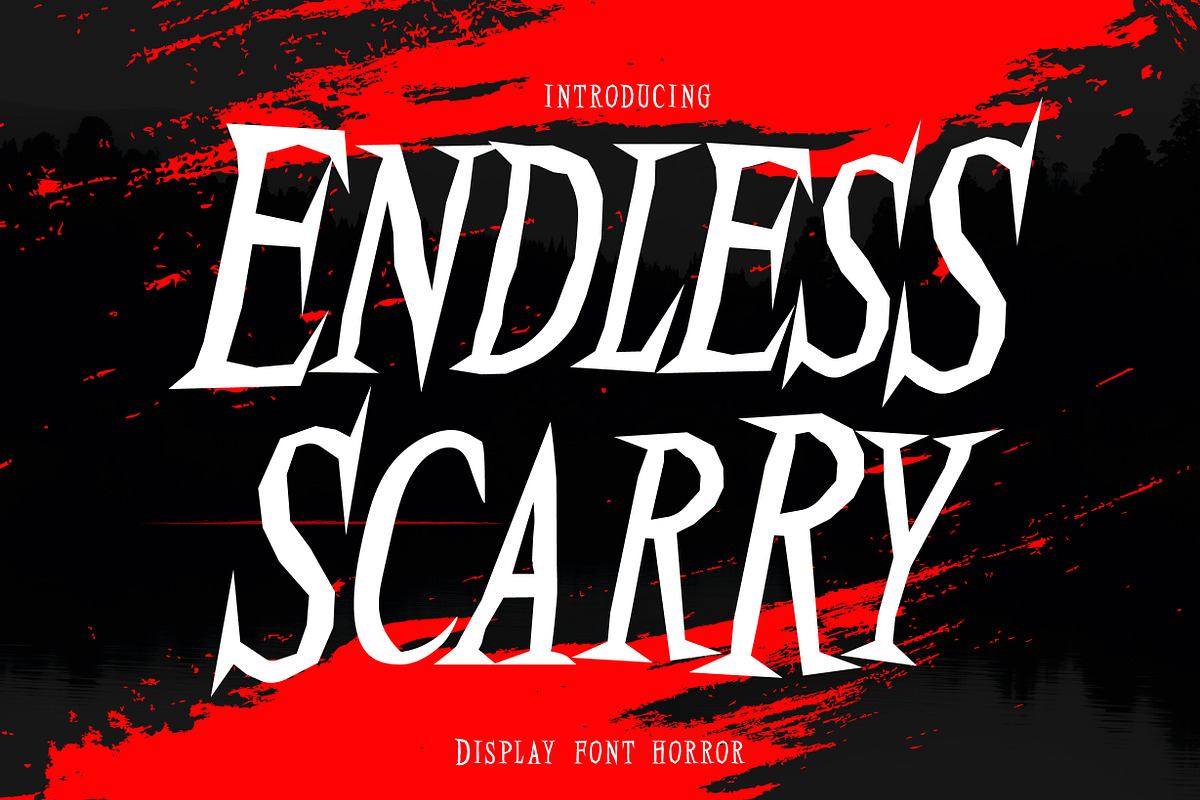
Endless Scarry - Display Font Horror Free Download is a terrifyingly bold typeface designed to send chills down your spine. With jagged edges, eerie strokes, and a chaotic vibe, this horror display font is perfect for Halloween posters, haunted house branding, scary movie titles, thriller book covers, and anything that needs a dark, twisted edge. It’s built to shock, spook, and stand out.
Using the Endless Scarry - Display Font Horror Free Download brings instant fear factor to your design. Its dramatic letterforms create a sense of urgency and dread, ideal for setting a haunted atmosphere. Whether you're designing promotional materials or digital horror content, this font will leave a lasting impression.